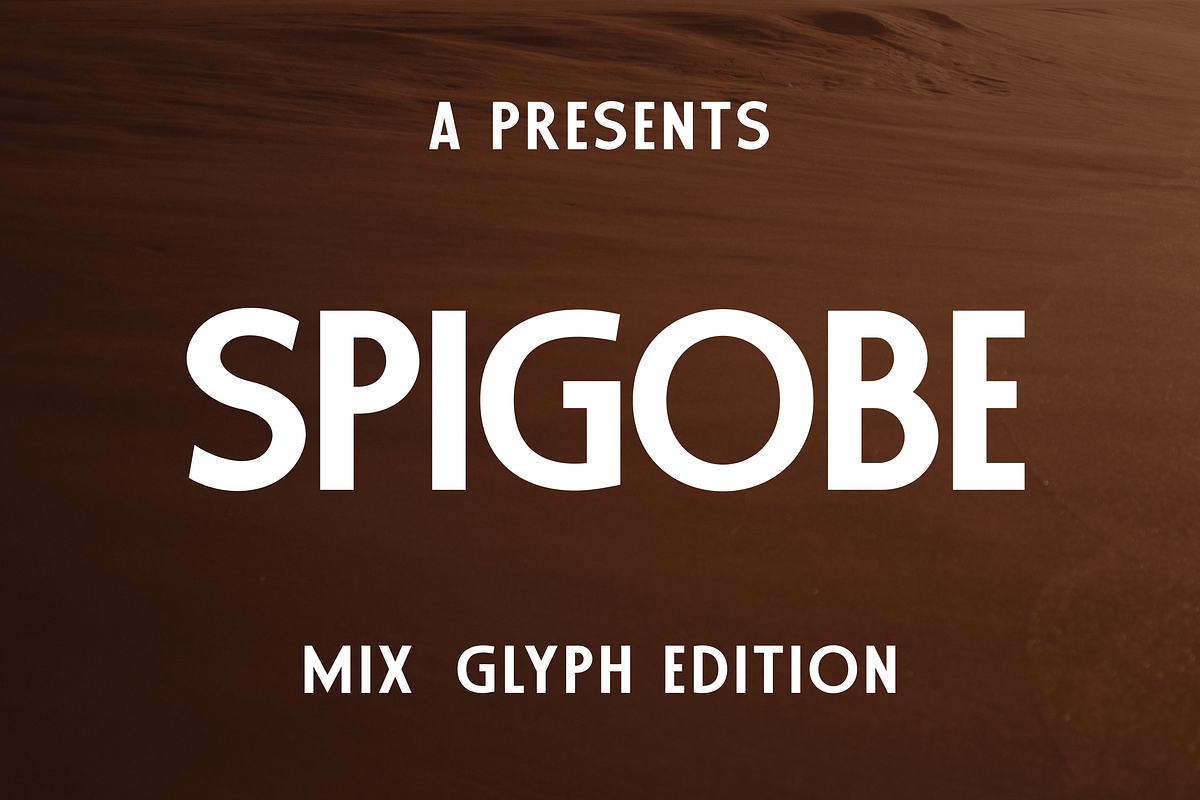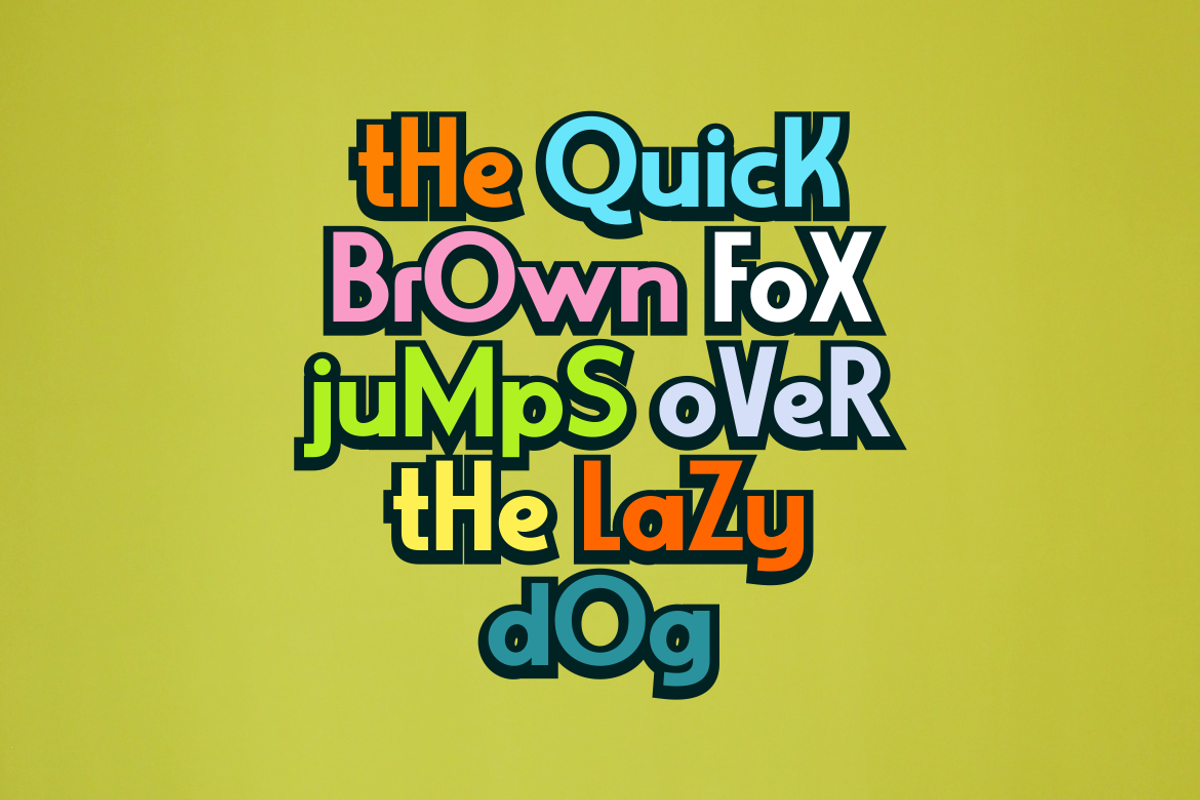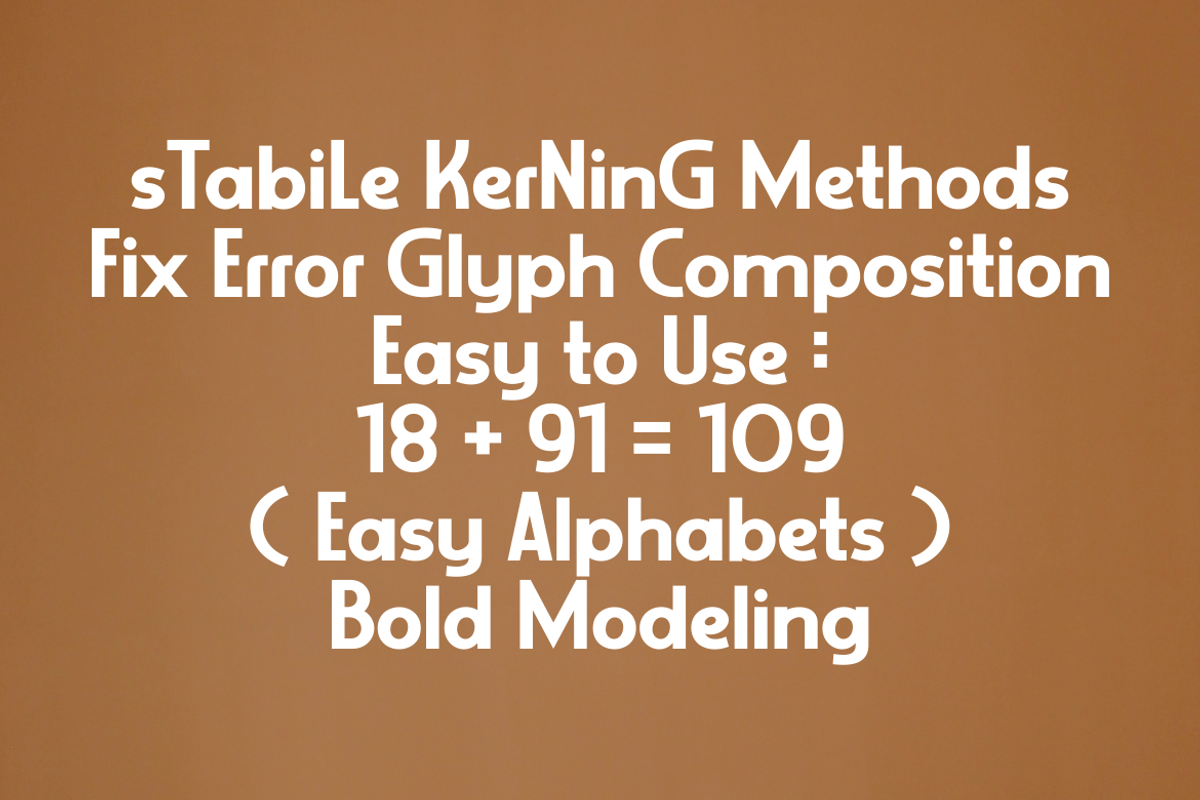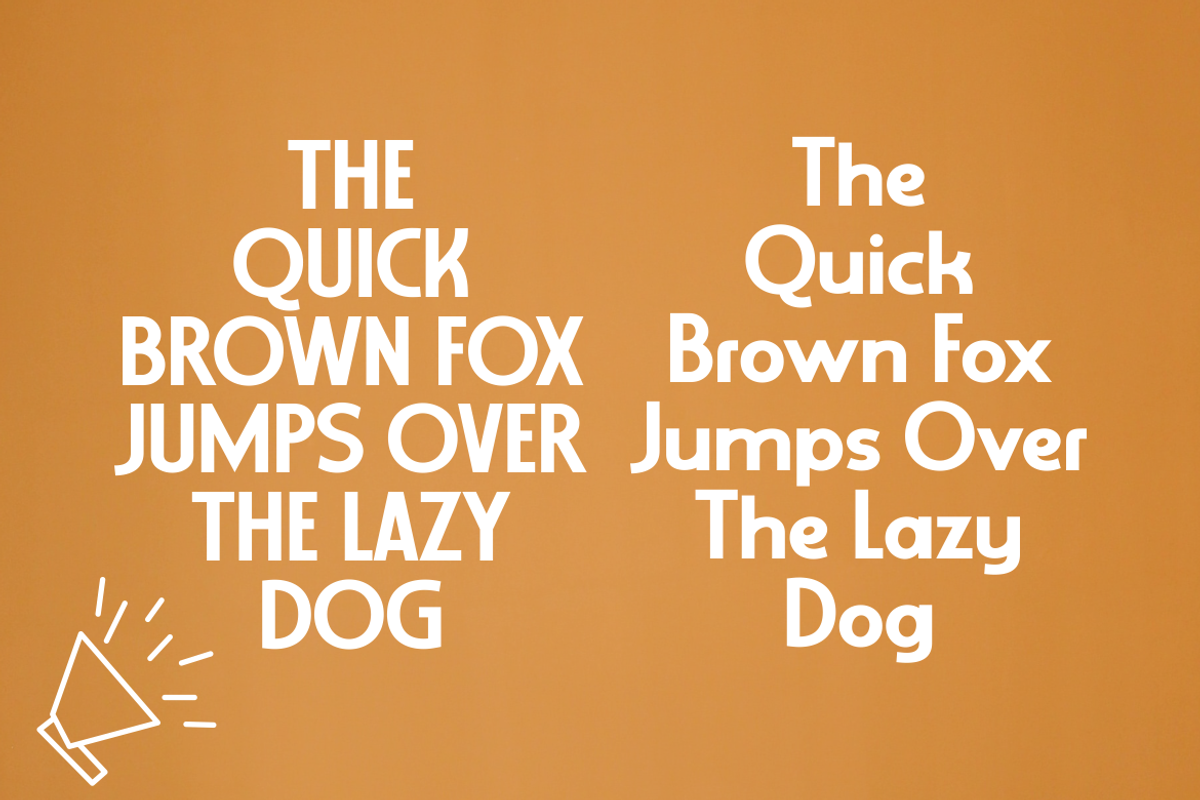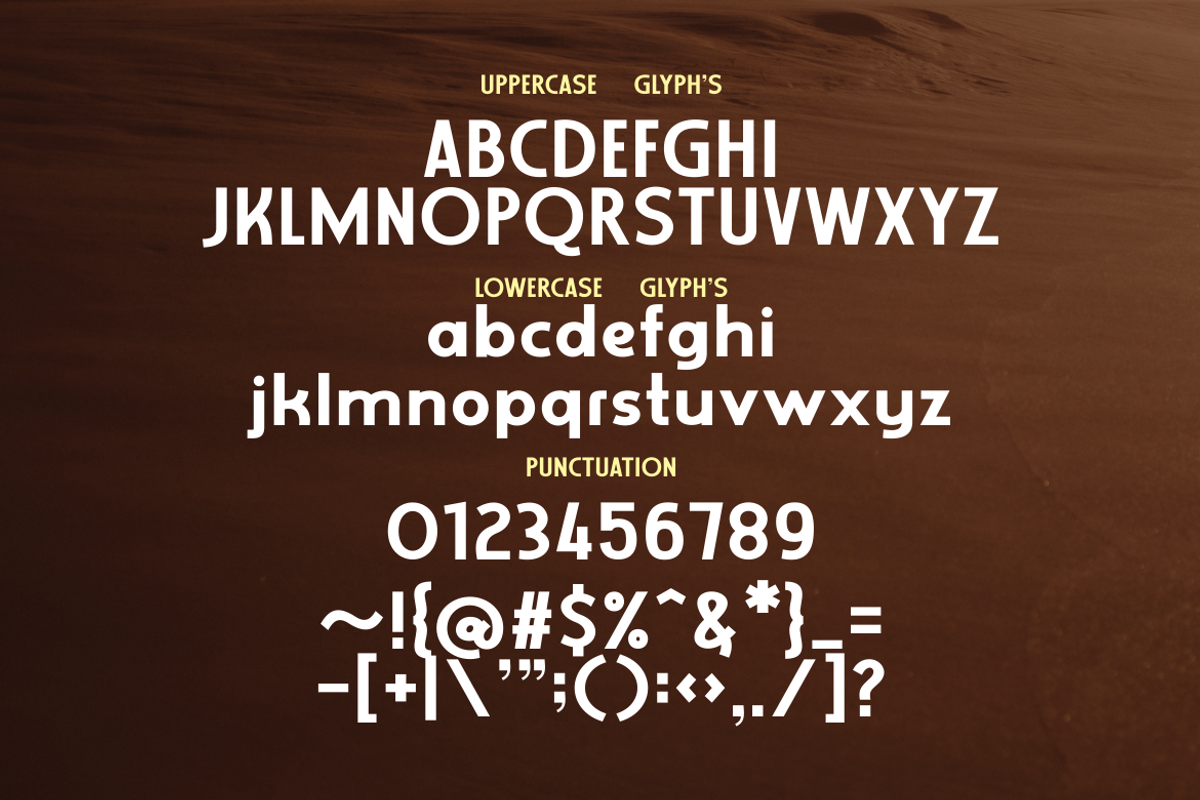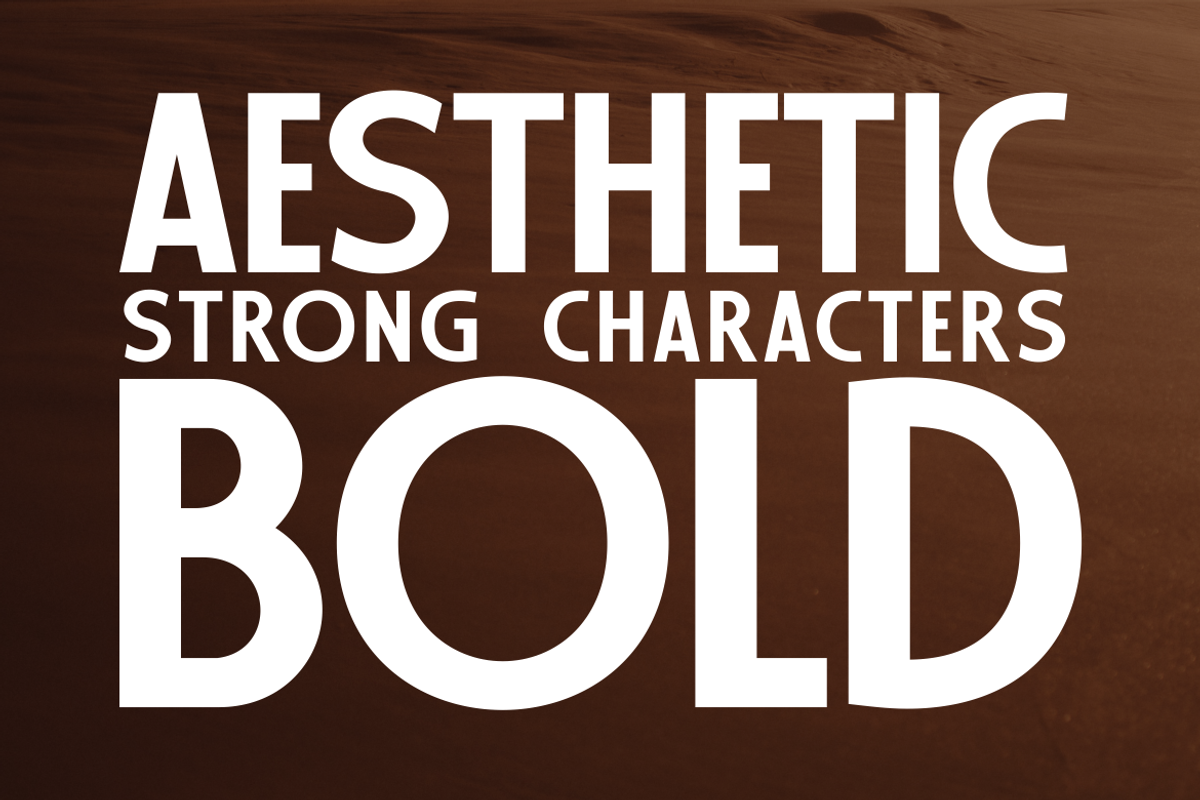
Spigobe Mix Upper & Lowwer
Introducing the diverse charm of the Versatile Font, tailored to accommodate your expressive needs. Whether looking for elegance or desiring an aesthetic appeal, Versatile stands out. Emanating joyful vibes with its cheerful hues, it's a vibrant playground for your creative projects. Navigate your artistic journey guided by your unique voice, as Versatile Font affirms, your choice is your creative policy. Immerse in this Font's dynamic features and let your messaging shine. Appreciation for your time.